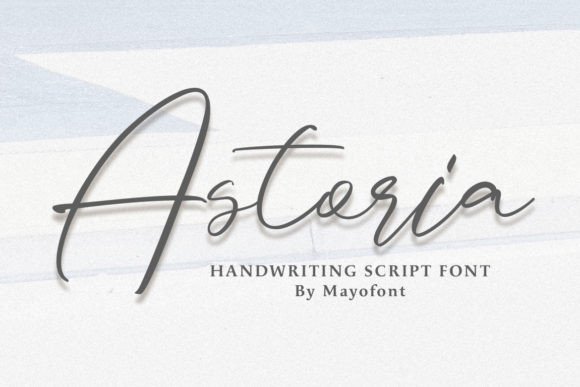
Introducing Astoria Font: A Magical Blend of Script and Handwriting Styles
Have you ever been in the middle of a design project, pouring your heart and soul into it, only to realize that something is missing? You’re not quite sure what it is, but you know it’s not quite right. For me, that something was a font that could capture the essence of individuality and artistic expression. I was working on a project for a client who wanted a stylish invitation for a wedding, and I just couldn’t find the perfect font. That’s when I discovered Astoria Font, and it completely transformed my design.
With its flowing strokes and intricate details, Astoria Font brings a touch of elegance and a personal touch to your designs. Each character is meticulously crafted, capturing the essence of handwritten charm. Whether adorning a heartfelt letter or gracing a stylish invitation, this font adds a captivating allure that draws the eye and sparks curiosity.
A Personal Review of Astoria Font
- ✨ Unique and Elegant Design: Astoria Font is a true testament to the beauty of individuality and artistic expression. Its enchanting script and handwriting styles make it perfect for designs that require a personal touch.
- 💫 Perfect for Invitations and Letters: Astoria Font is perfect for designs that require a touch of elegance and sophistication, such as wedding invitations, love letters, and business correspondence.
While Astoria Font is an amazing font, there are a few small quirks to be aware of:
- ⚠️ Some characters may require manual kerning: As with any font, some characters may require manual kerning to get the perfect spacing.
- 🤔 Not suitable for body text: Due to its intricate details and flowing strokes, Astoria Font may not be suitable for body text. It’s best used for headings, titles, and short paragraphs.
The Backstory of Astoria Font
Astoria Font was designed with the intention of capturing the essence of handwritten charm and the elegance of script fonts. The designer wanted to create a font that would be perfect for designs that require a personal touch, such as invitations, letters, and business correspondence. With its flowing strokes and intricate details, Astoria Font is sure to add a touch of magic to your designs.
Q: What is Astoria Font?
A: Astoria Font is a unique and elegant font that seamlessly blends script and handwriting styles.